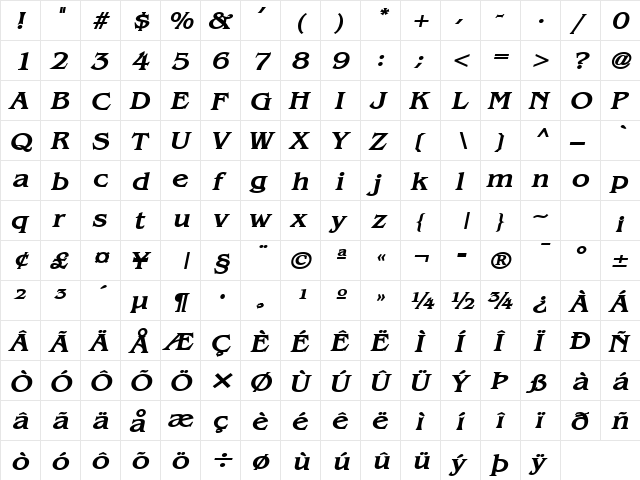
Bangle Wide BoldItalic
Design Context for Bangle Wide Typeface
Bangle Wide offers clean, dependable letterforms without strong stylistic allegiance, making it a practical choice for designers who need flexibility. Its italic angle brings a sense of urgency and motion to the letterforms. Its bold stroke weight gives it real presence on the page.
Pro Tip: Use Bangle Wide for emphasis, pull quotes, and subheadings where its slanted energy can add rhythm to the layout.